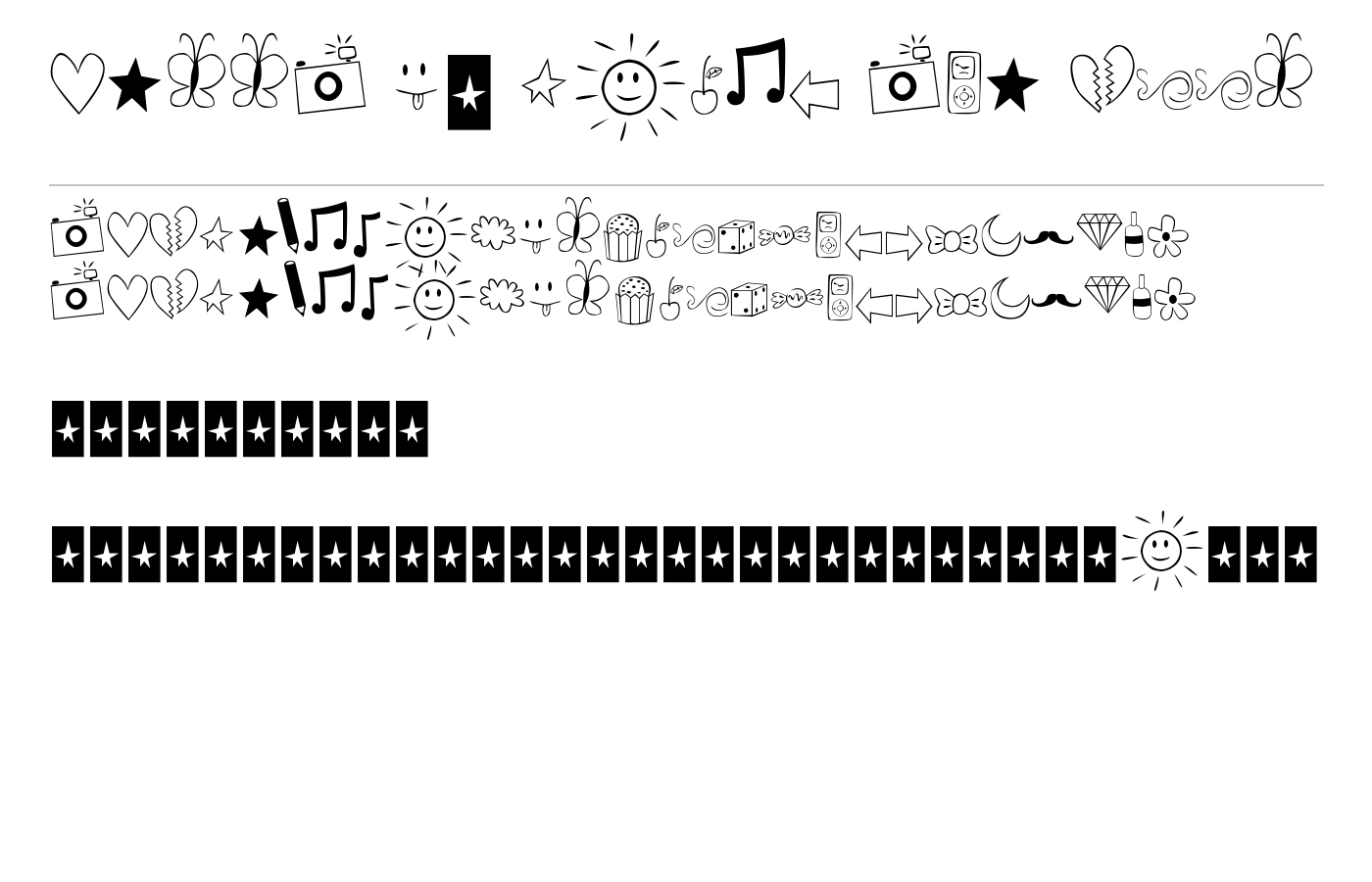
Bella K. Dings Are Cool Font is a playful, whimsical dingbat typeface featuring hand-drawn icons like hearts, stars, butterflies, and smiley faces. Its light, casual line work and quirky shapes make it perfect for fun, creative projects such as party invitations, greeting cards, and children’s designs. This font adds a cheerful, informal vibe that enhances any project needing a touch of personality and charm.
Bella K. Dings Are Cool Font
About Bella K. Dings Are Cool Font
| Font family | Bella K. Dings Are Cool Font |